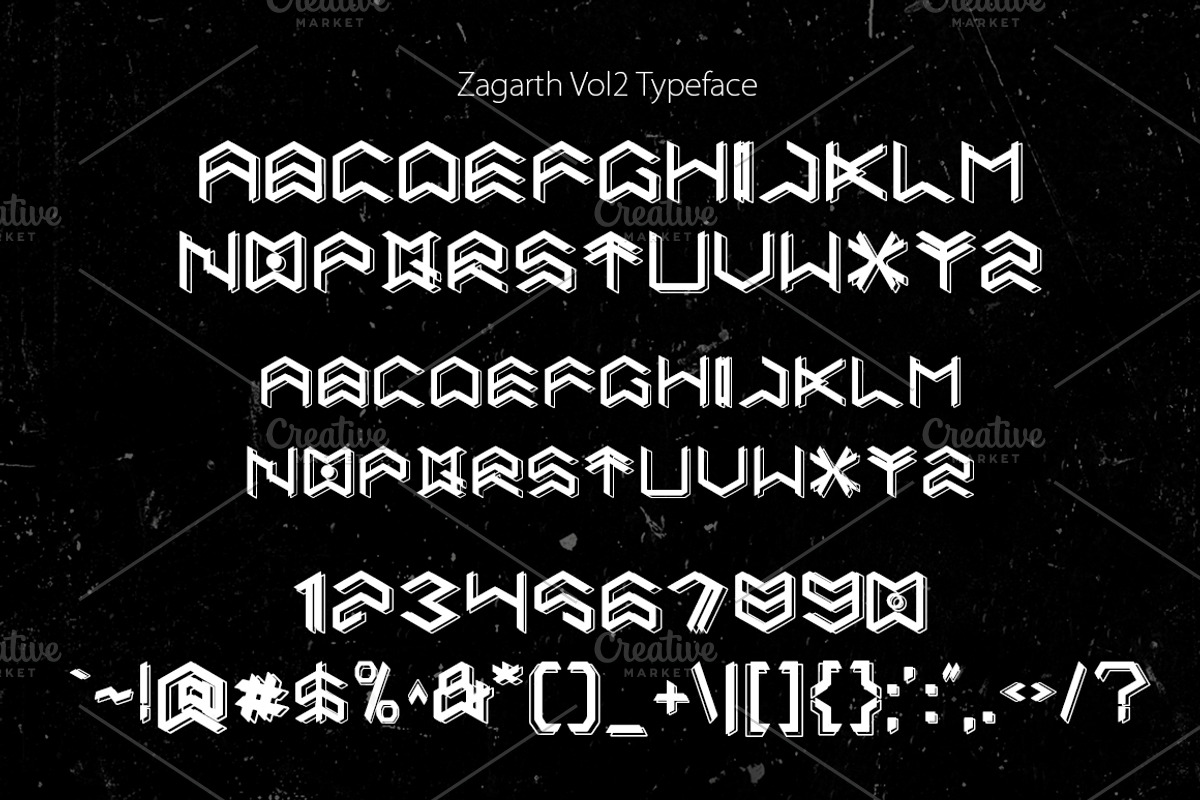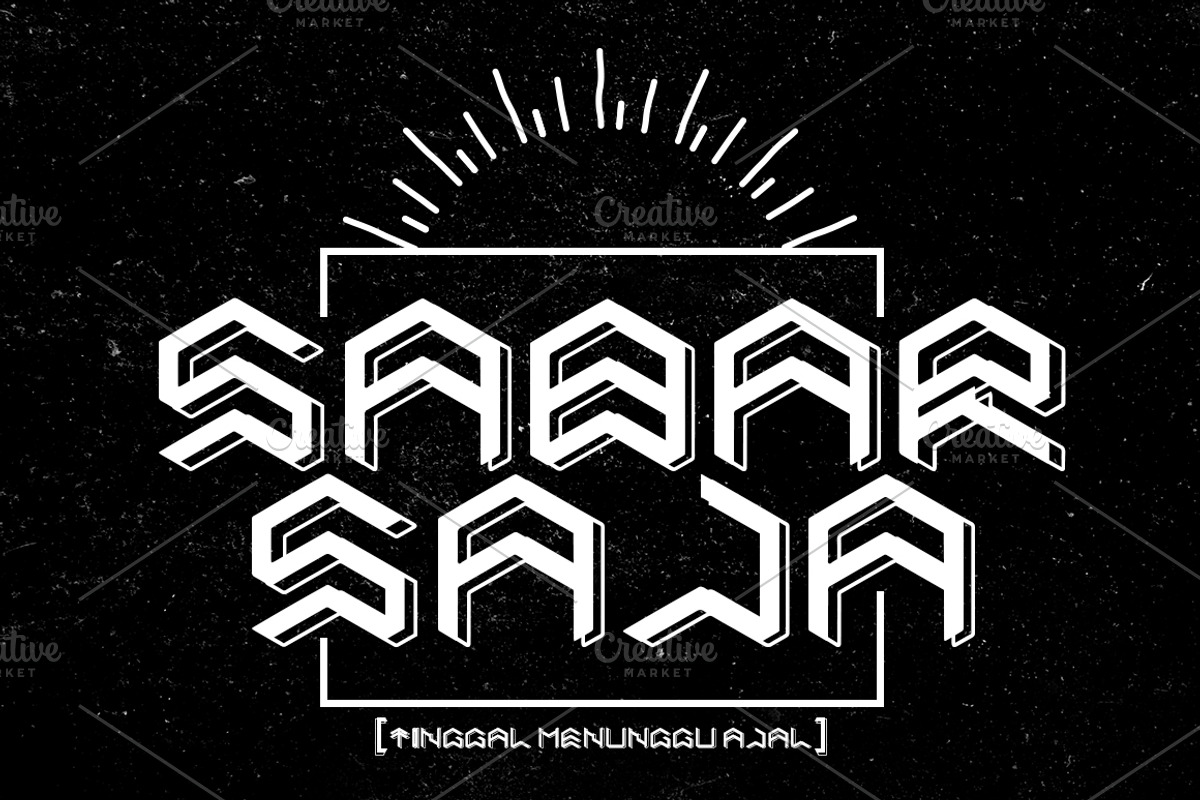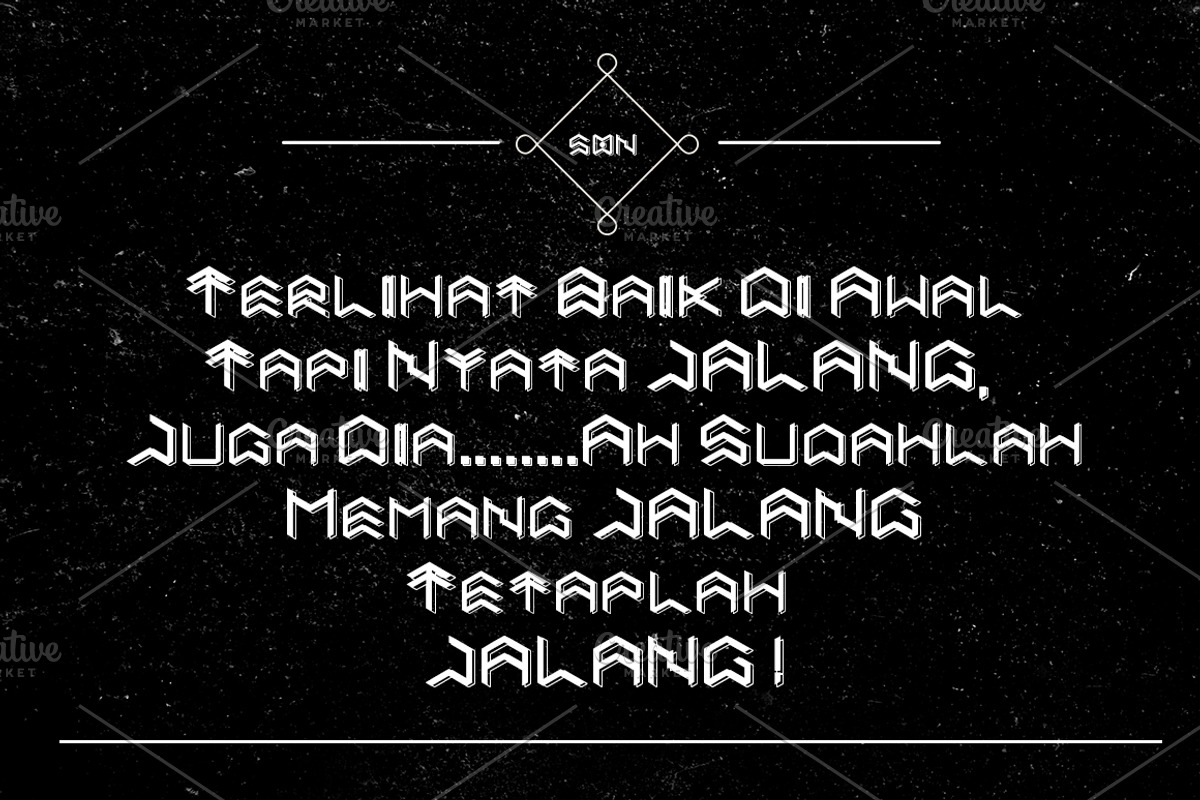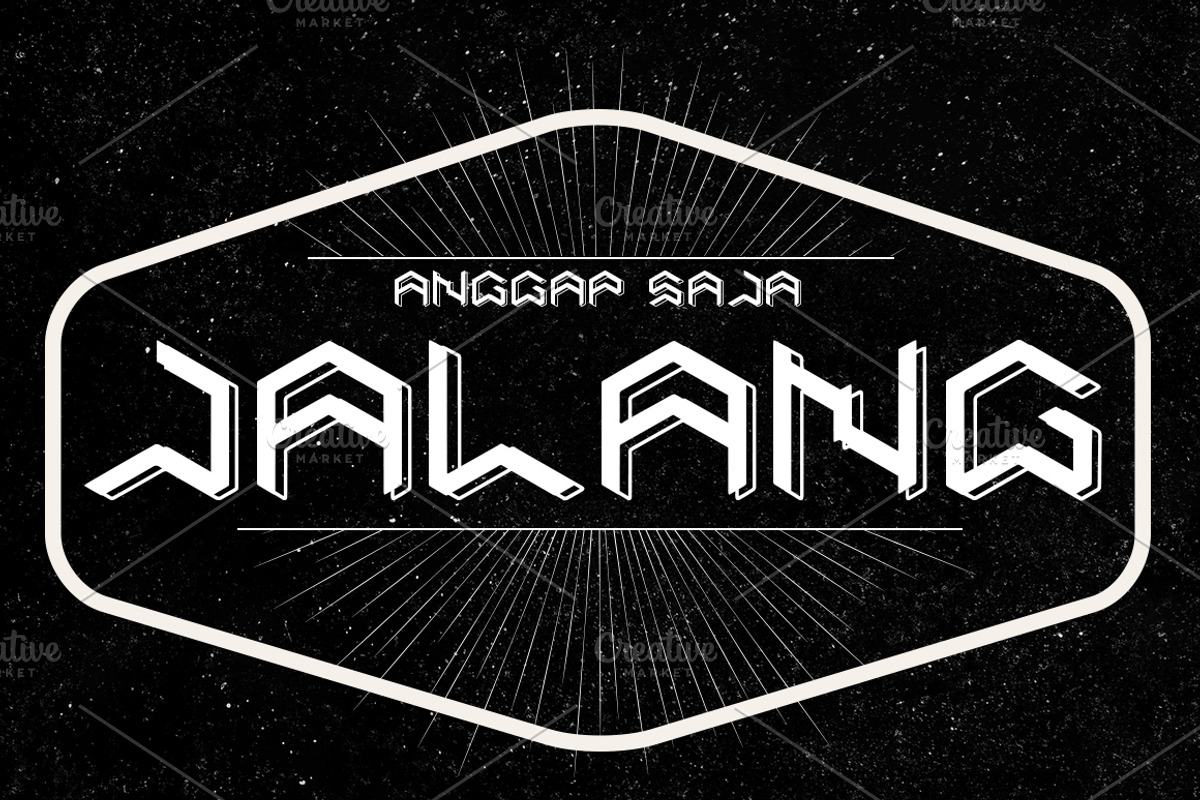
Zagarath Vol2 Typeface
Zagarath Vol2 Typeface by Magoo Studio is a font selected for branding, posters, packaging, typography.
- Zagarth Vol2 typeface includes a full set of uppercase, numerals and punctuation.Could help to good display, uses for labeling, clothing, mu
Why Zagarath Vol2 Typeface is worth a look
Zagarath Vol2 Typeface by Magoo Studio fits naturally into Branding, posters, packaging, typography.